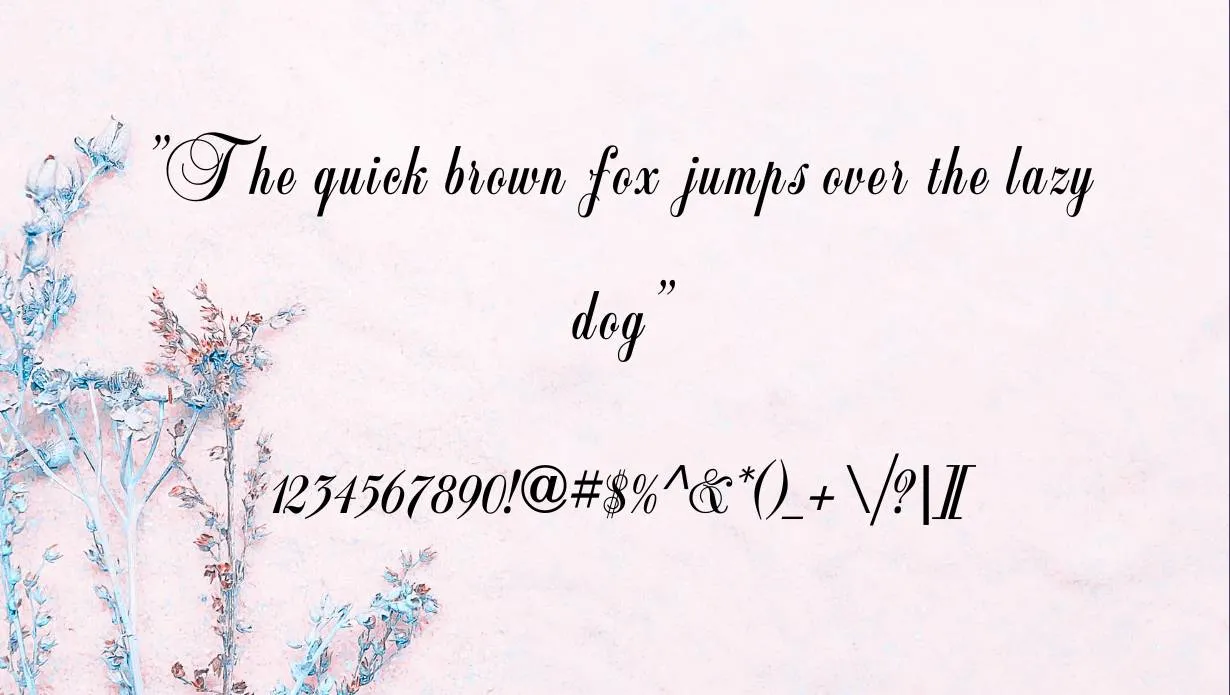
Balmoral ICG Font is a sophisticated and decorative typeface characterized by its ornate and elegant style. Its intricate details and classic design make it perfect for formal invitations, certificates, and prestigious documents.
| Name | Balmoral ICG Font |
| Designer | Martin Wait |